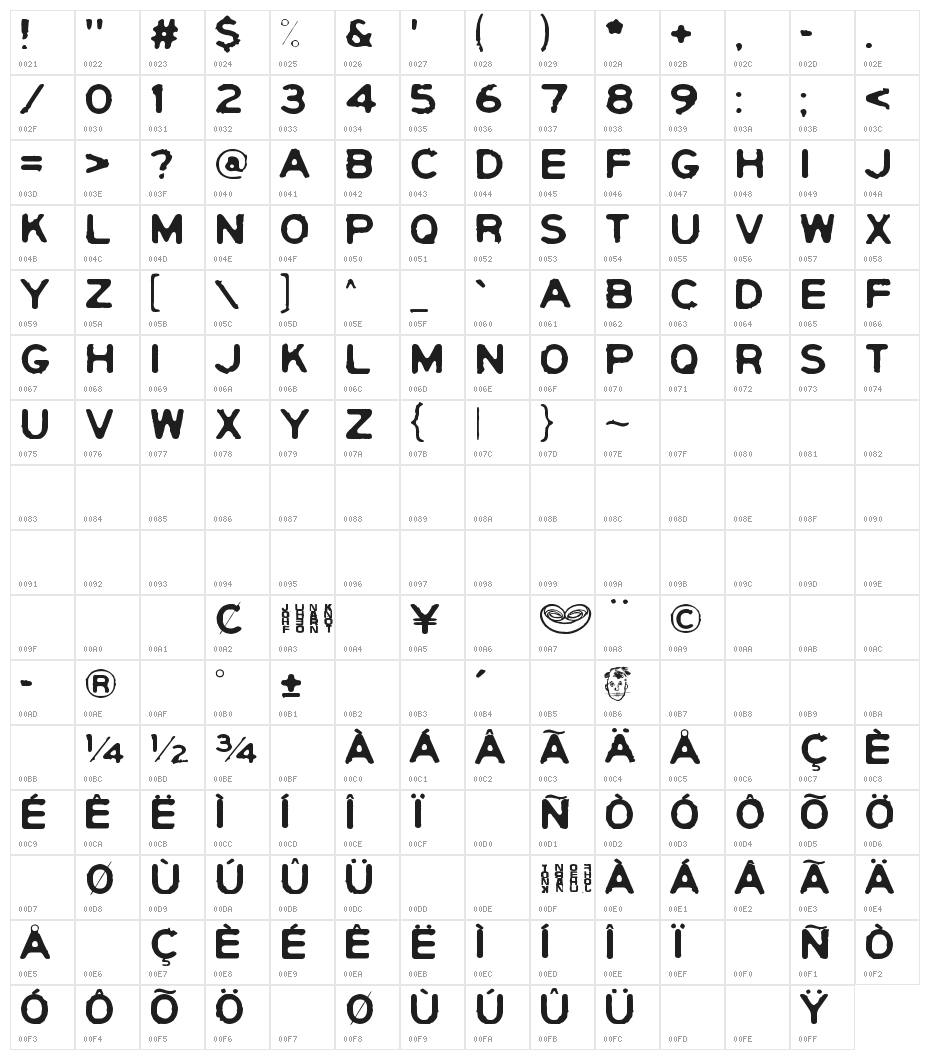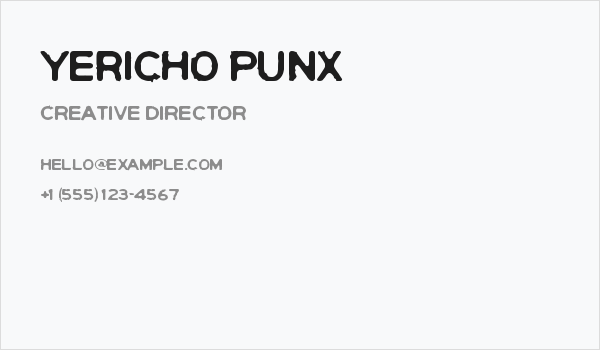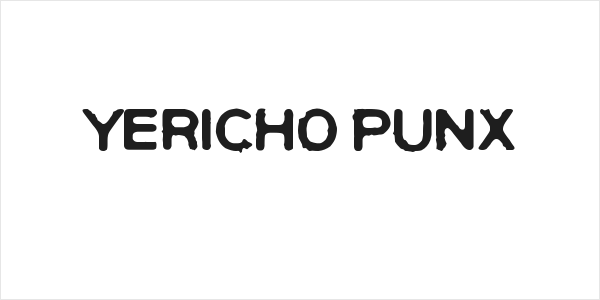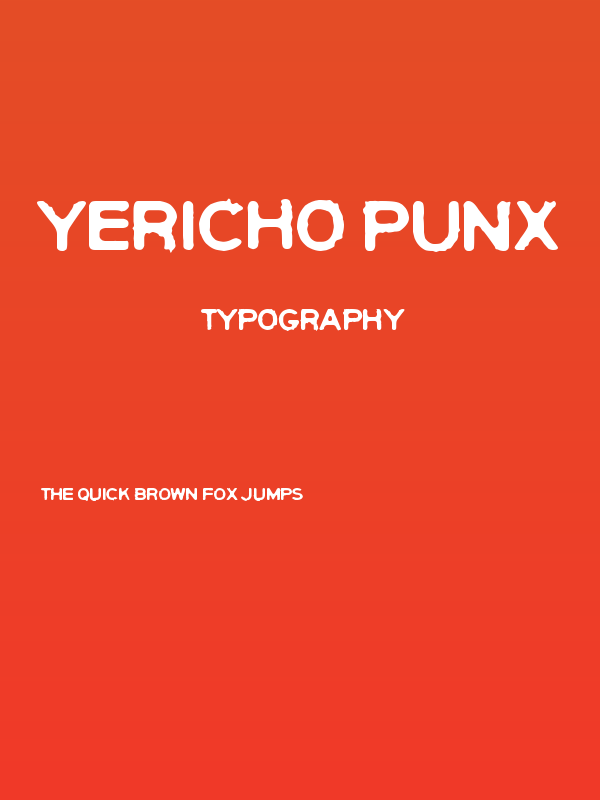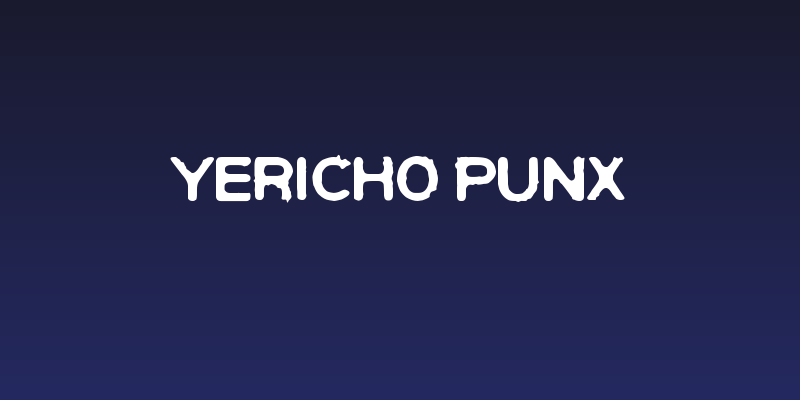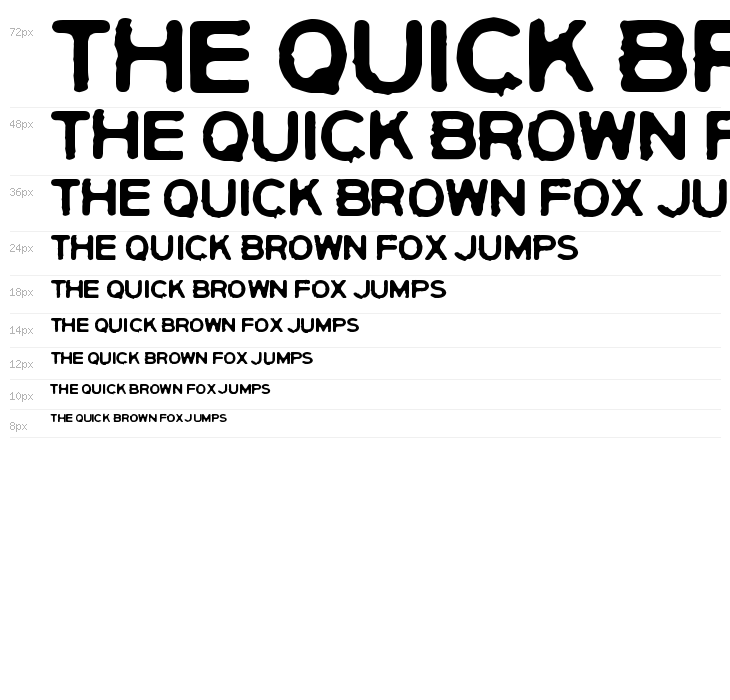
Yericho Punx Font
Yericho Punx Description
This font features a bold and rugged style with a distressed, grunge-like appearance. The characters have uneven edges and a slightly irregular form, giving them a hand-crafted, rebellious look. The uppercase and lowercase letters maintain a consistent weight, while the numbers and special characters follow the same rough aesthetic. This font is ideal for projects that require a bold statement or an edgy, urban feel. Its unique style makes it stand out, perfect for capturing attention in headlines or logos.
| Overall Style | Grunge, Urban, Rebellious |
| Proposed Projects | Ideal for music album covers, streetwear branding, posters, and edgy graphic designs. |